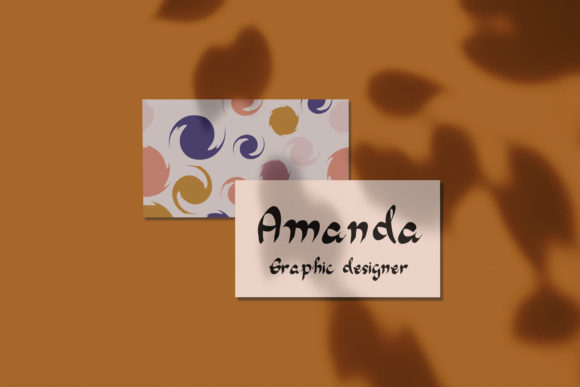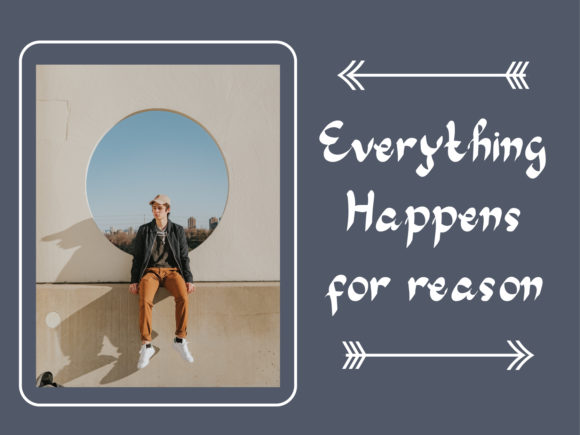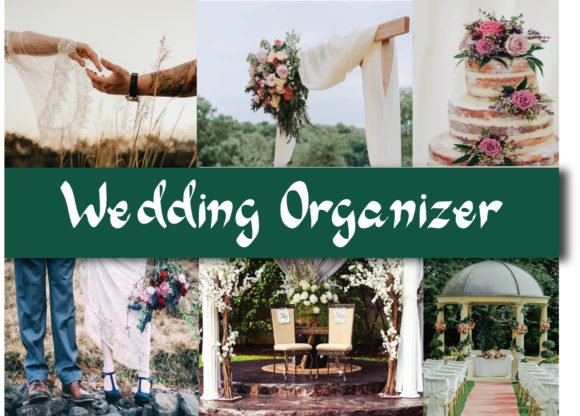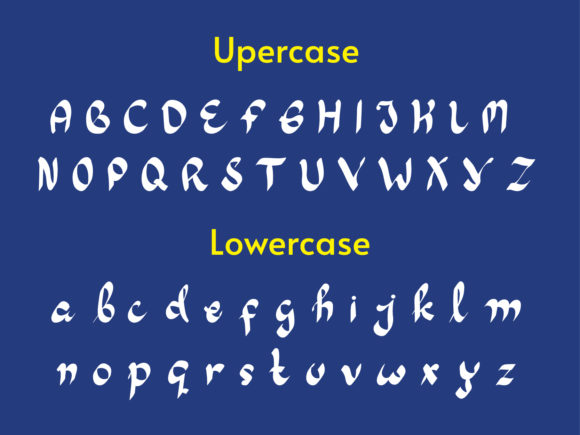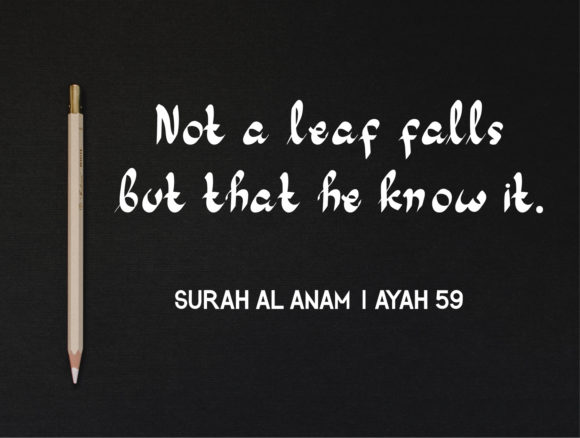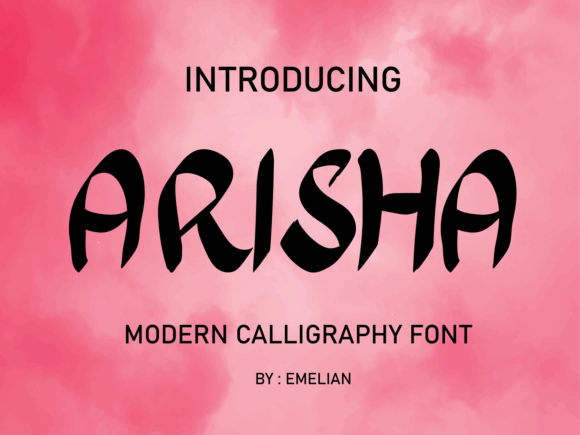
The Designer’s Delight: Arisha Font
I still remember the day I stumbled upon the perfect font for a client’s branding project. I had been searching for hours, trying out different fonts, but none seemed to capture the friendly and approachable vibe I was going for. That’s when I discovered Arisha Font – a bold and friendly script font that instantly won me over. In this article, I’ll share my experience with Arisha, its features, and how to make the most of it in your designs.
An Honest Review of Arisha Font
What I Love About Arisha ✨
- ✅ Unique and eye-catching: Arisha’s bold and curly strokes make it stand out from other script fonts.
- ✅ Friendly and approachable: The font’s warm and inviting feel makes it perfect for branding, packaging, and photography projects.
- ✅ Highly versatile: Arisha can be used for a wide range of projects, from logos and titles to social media graphics and more.
- ⚠️ Limited use in body text: Due to its bold and decorative nature, Arisha may not be the best choice for lengthy body text.
- ⚠️ Requires attention to spacing: To ensure optimal readability, you may need to adjust the spacing between letters and words.
- Experiment with OpenType features like ligatures and stylistic alternates to add visual interest.
The Story Behind Arisha Font
Arisha Font was designed with the intention of creating a friendly and approachable script font that could be used for a wide range of projects. The designer aimed to craft a font that would add a personal touch to designs, making them more relatable and engaging.
Q: What type of projects is Arisha Font best suited for?
A: Arisha Font is perfect for branding, packaging, photography, and any project that needs a handwritten touch.
Q: Is Arisha Font suitable for body text?
A: While Arisha Font can be used for short paragraphs, it’s not ideal for lengthy body text due to its bold and decorative nature.